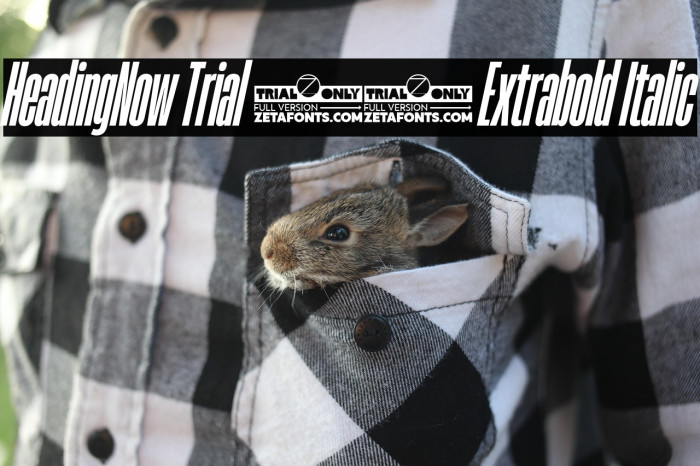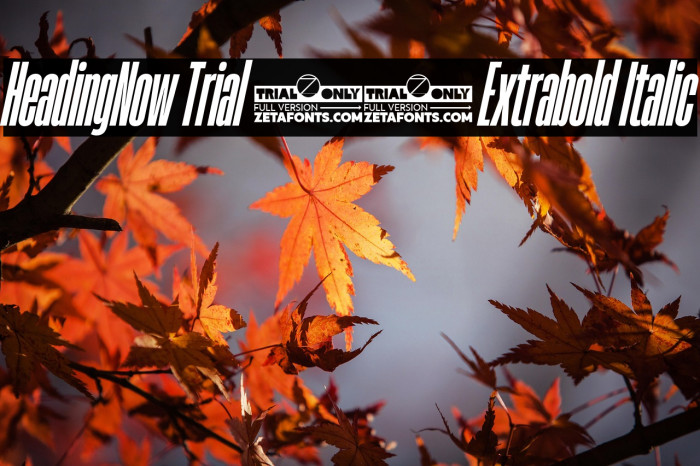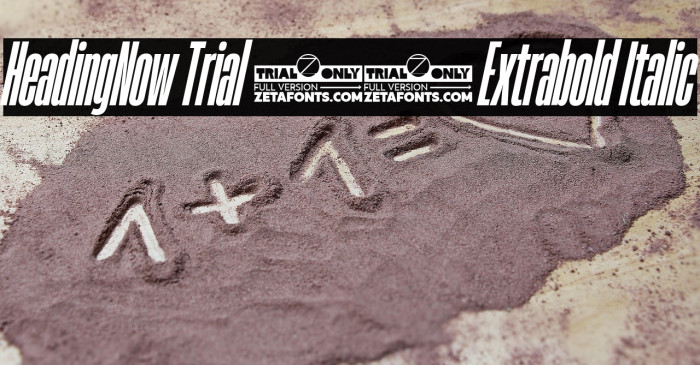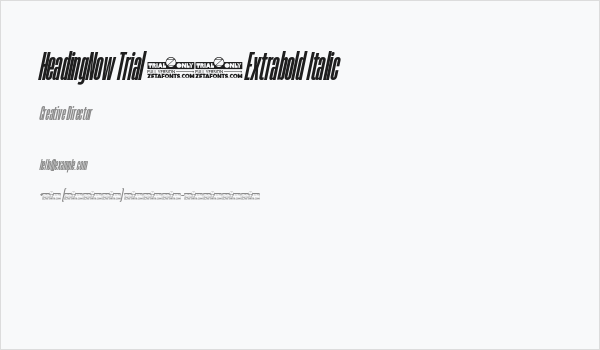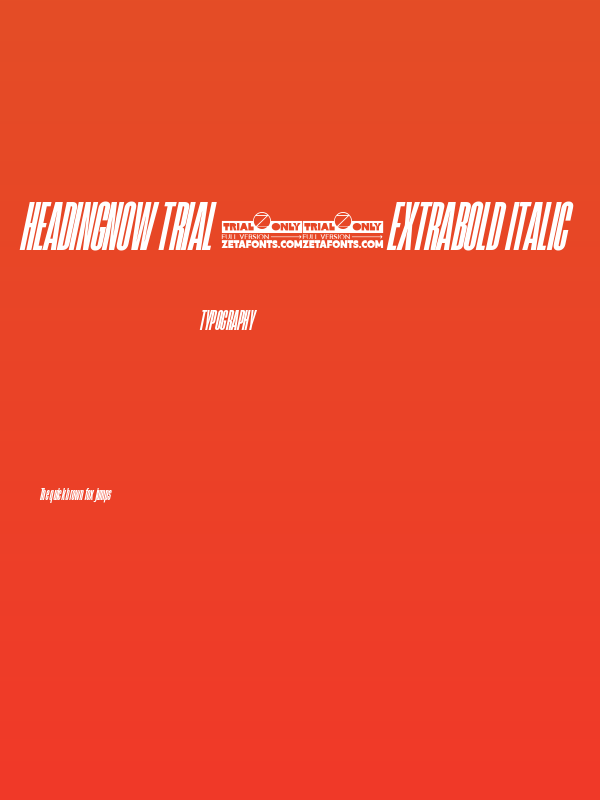
HeadingNow Trial 17 Extrabold Italic Font
HeadingNow Trial 17 Extrabold Italic Description
This font features a bold and dynamic style with a strong italic slant, creating a sense of movement and urgency. The characters are tightly spaced, enhancing the compact and impactful appearance. The uppercase letters are tall and commanding, while the lowercase letters maintain a consistent style, ensuring readability. The numerals and special characters are designed to match the boldness and slant of the alphabet, making them suitable for attention-grabbing headlines and modern design projects. The overall aesthetic is modern and assertive, ideal for making a statement.
| Proposed Projects | Ideal for headlines, advertising, branding, and any project requiring a strong visual impact. |